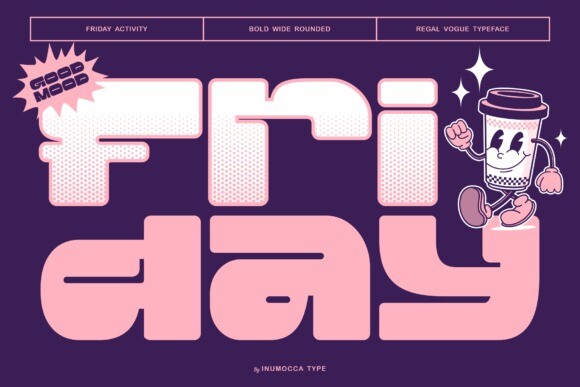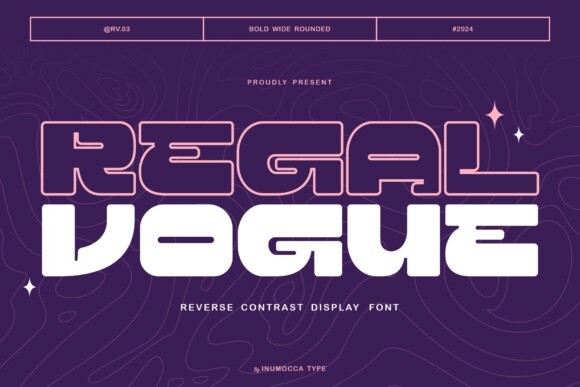
Regal Vogue Font
Designer: inumocca_type
Regal Vogue Font is A Reverse-Contrast Display font, Vintage look, Fresh, Eyecatching, power full and Bold font. Really playful typeface to covering your Project, like Lettering, Website Interface, Magazine, Branding, Poster, wedding invitations, Quotes Lettering, Logos, and more your project design.